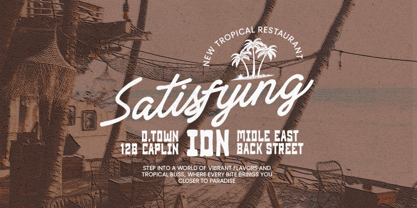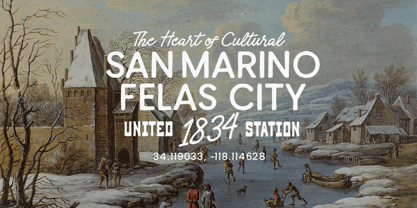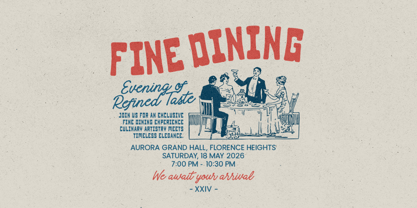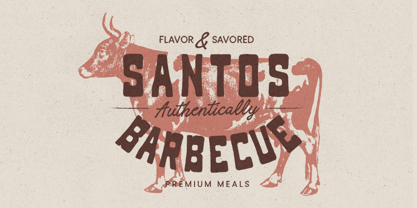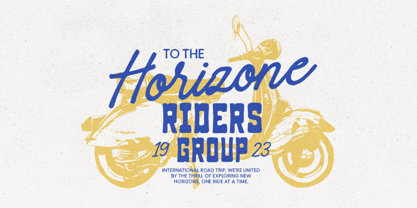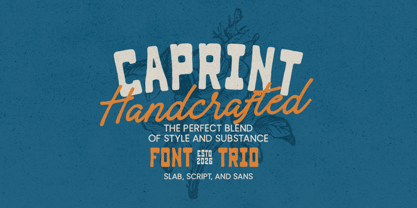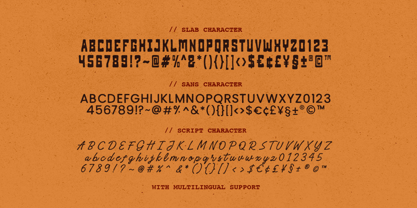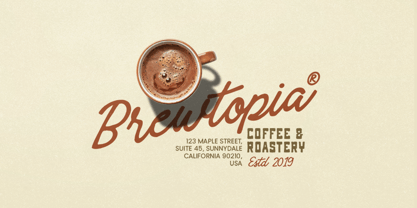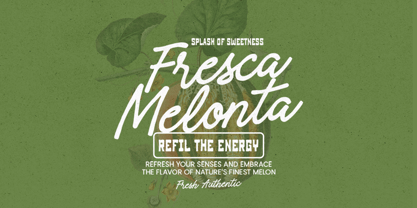
Caprint
The Caprint Font Family was designed by Liwa Shidqy and published by Bale Type. Caprint contains 3 styles and family package options. More about this family
Caprint is a versatile font trio featuring handcrafted, organic aesthetics that blend rustic charm with modern style. This collection includes a bold slab serif, a clean minimalist sans, and a natural handwritten script, giving you the flexibility to create stunning and memorable logotypes with ease. Designed to work beautifully together or separately, Caprint is perfect for a wide range of creative projects such as logos, posters, branding, packaging, quotes, apparel, signage, and social media designs. Its distinctive outdoor and cowboy-inspired character adds warmth, personality, and authenticity to any visual concept. Caprint also comes with multilingual support, making it suitable for both local and international design needs.